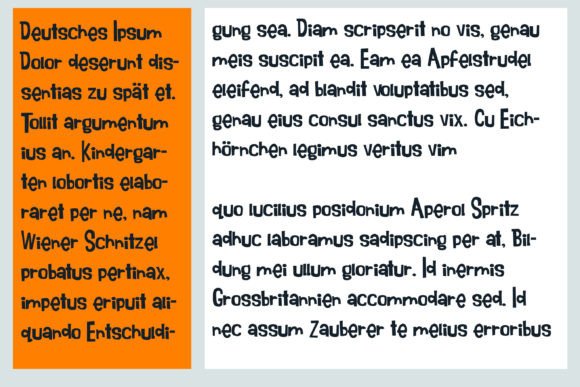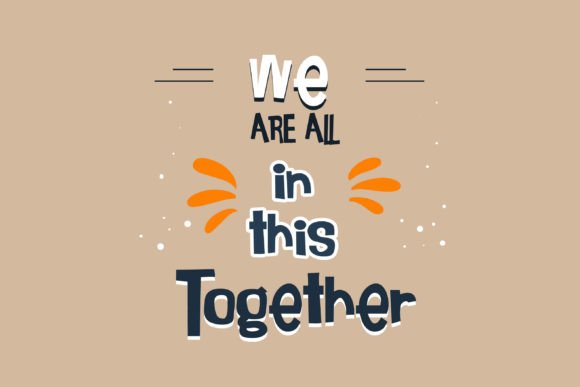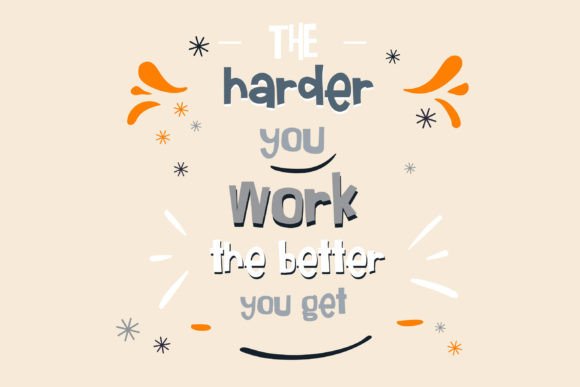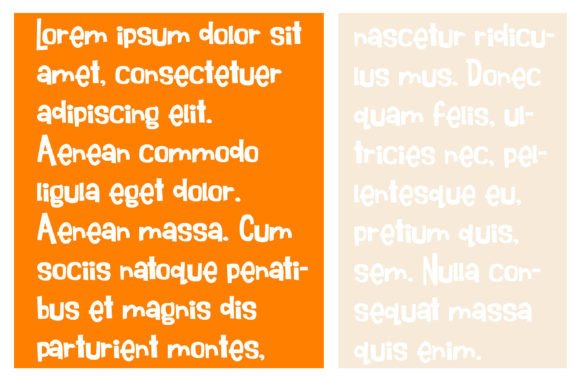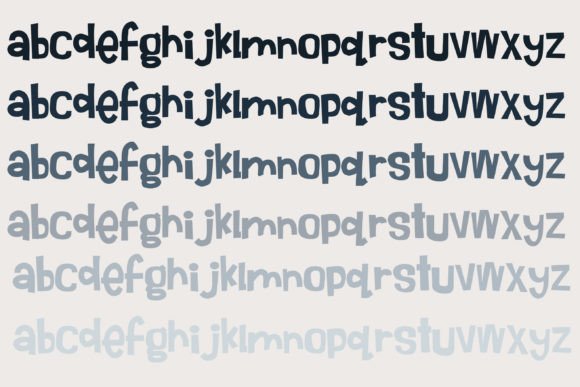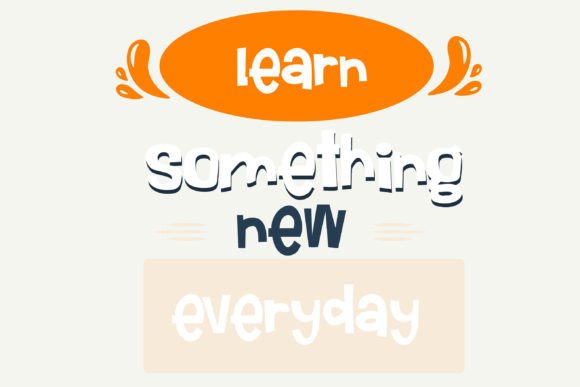
Introduction to Right Side Up Font
Have you ever stumbled upon a beautiful handwritten note in a friend’s journal, and immediately felt inspired to create something of your own? For designers, that moment of creative spark is what drives us to seek out new design resources and push the boundaries of our craft. In the world of typography, there’s one font that stands out for its unique charm: the Right Side Up Font.
This hand-crafted sans serif font is a true treasure for designers, with its boxy and whimsical design making it perfect for a variety of creative projects. Whether you’re working on a free download project or designing a high-quality invitation, the Right Side Up Font is sure to add a touch of personality to your work. With its transparent background and versatility, this font is a valuable addition to any designer’s toolkit.
Key Features of Right Side Up Font
- Right Side Up Font includes a range of scalable fonts, perfect for use in logos, typography, and branding
- Each font is designed to maintain its clarity and legibility at various resolutions, including 72 dpi and 300 dpi
- Supports a wide range of languages, making it a versatile design resource for international creative projects
- Includes a comprehensive character set with uppercase and lowercase letters, numbers, and special characters
Honest Review: Right Side Up Font
- ✨ High-quality design: The Right Side Up Font has a crisp, clean aesthetic that’s perfect for a variety of design applications.
- ✨ Transparent background: This feature makes it easy to combine the font with other design elements, allowing for seamless customization.
- ✨ Versatile: The font is suitable for both digital and print projects, making it a great addition to any design resource.
- ⚠️ Limited font sizes: While the font is available in several weights, the selection of font sizes is somewhat limited, which may require additional customization.
- ⚠️ Not ideal for small text: Due to its unique design, the font may not be the best choice for small text, as it can become difficult to read.
Overall, I’m impressed with the Right Side Up Font. While it may have some limitations, its unique design and high-quality aesthetic make it a valuable addition to any design resource. I’d definitely recommend it for any creative project that requires a touch of personality.
Common Use Cases for Right Side Up Font
The Right Side Up Font is a versatile design resource that can be used in a variety of creative projects, including business cards, posters, and social media graphics. Its high quality and transparent background make it a great choice for designers looking to add a professional touch to their work.